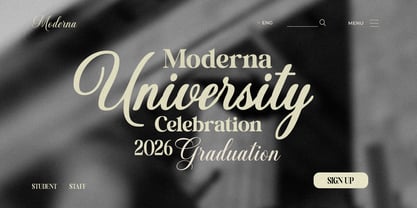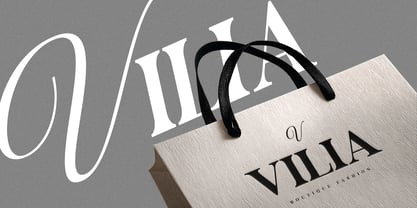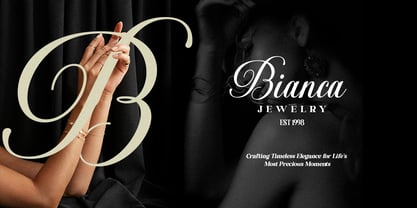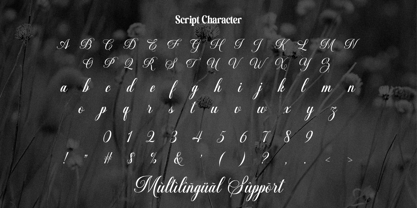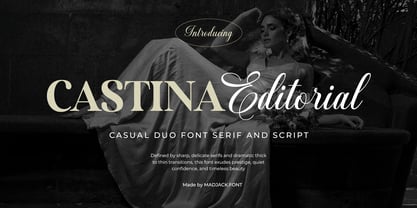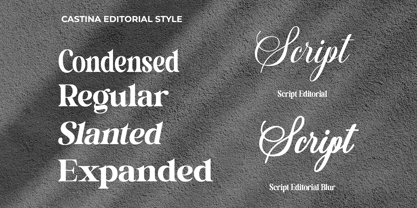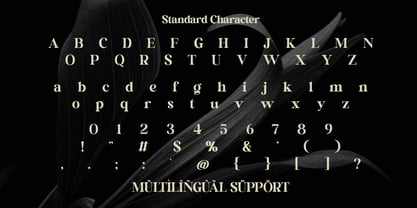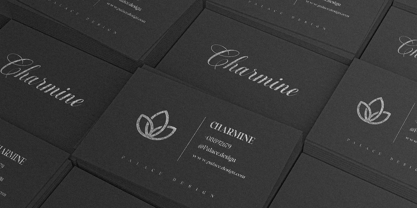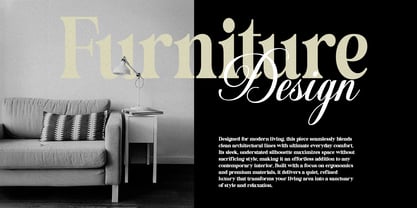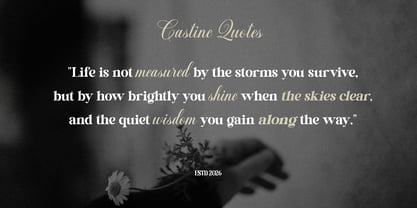
Castina Editorial Blur Script
Die Schriftfamilie Castina Editorial Blur Script wurde von Zaki Muhammad entworfen und von madjack.font veröffentlicht. Castina Editorial Blur Script enthält 6 Stile und Familienpaketoptionen. Mehr über diese Familie
Castina Editorial is a luxurious font duo that seamlessly combines a sophisticated high-contrast serif with a graceful signature script. Created for designers who appreciate timeless elegance, this typeface blends classic editorial aesthetics with contemporary refinement, making it the perfect choice for premium branding and high-end creative projects.
The serif font features sharp, delicate serifs, dramatic thick-to-thin contrast, and refined letterforms inspired by luxury fashion magazines and editorial typography. Its clean structure delivers a strong yet graceful presence, making headlines and logos look bold, stylish, and memorable.
Complementing the serif is a beautifully flowing script font with smooth curves, elegant swashes, and natural handwritten movement. The script adds warmth, romance, and personality, creating a harmonious contrast when paired with the serif. Together, they produce sophisticated typography that feels both modern and timeless.
Whether you're designing for luxury brands, wedding stationery, fashion campaigns, or premium packaging, Castina Editorial offers versatility and elegance in every letter. The combination of structured serif and expressive script allows you to create stunning compositions that capture attention while maintaining a refined, professional appearance.
Perfect For
• Luxury Branding
• Fashion & Editorial Design
• Wedding Invitations
• Beauty & Cosmetic Brands
• Jewelry & Perfume Packaging
• Boutique Logos
• Social Media Graphics
• Book Covers
• Magazine Headlines
• Product Packaging
• Elegant Stationery
• Certificates & Invitations
Font Characteristics
• Elegant High-Contrast Serif
• Flowing Handwritten Script
• Luxury & Editorial Style
• Classic Yet Modern Appearance
• Clean, Refined, and Sophisticated
• Perfect Serif and Script Pairing
• Suitable for Both Print and Digital Designs
Castina Editorial is more than just a font—it's a complete typography duo designed to bring elegance, prestige, and timeless beauty to every creative project. With its perfect balance of bold sophistication and graceful handwriting, it helps designers create unforgettable visual identities that stand out with confidence and style.